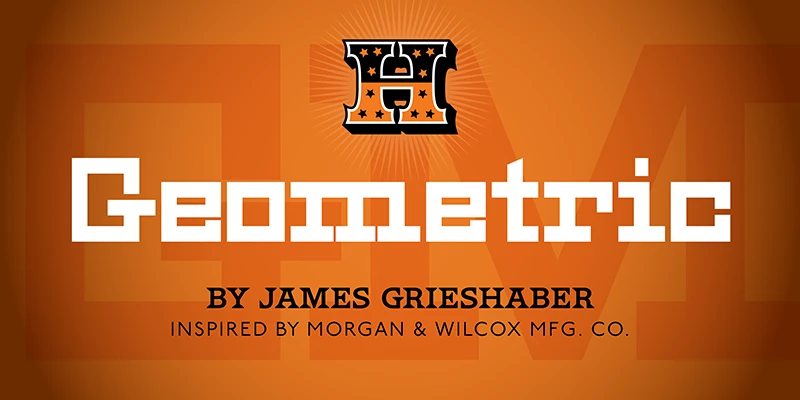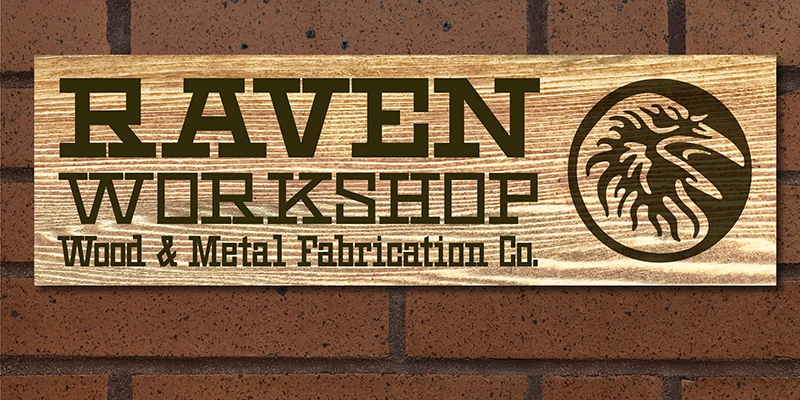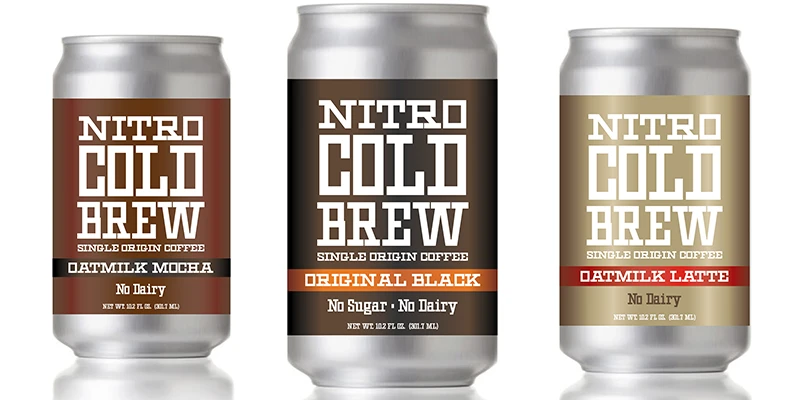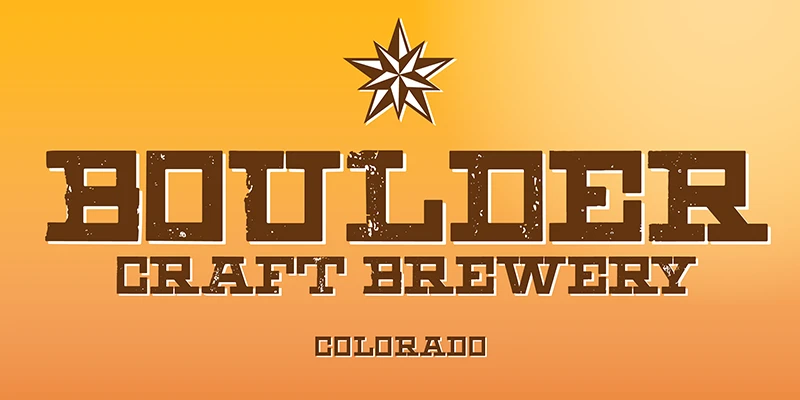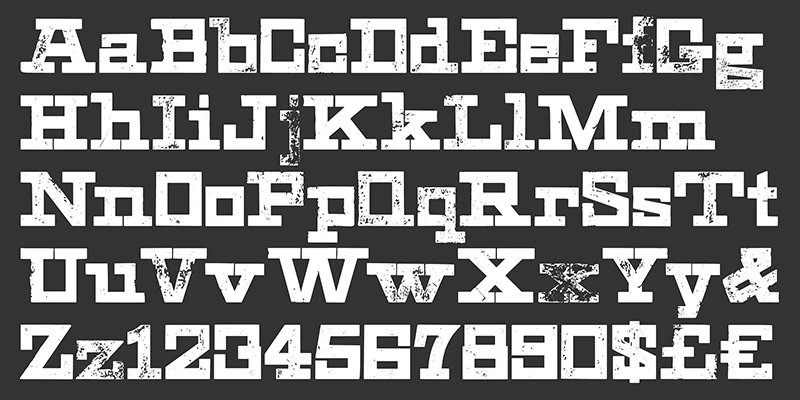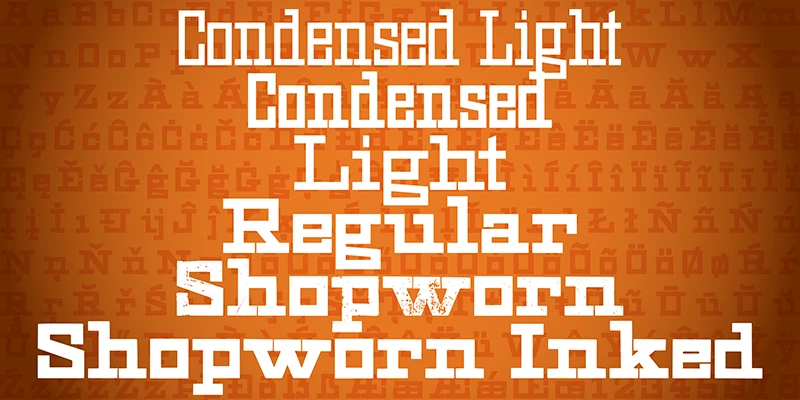
HWT Geometric is a 19th-century design that conjures up early 20th-century Dutch DeStijl lettering with mostly strict adherence to right angles and minimal stroke modulation. Geometric began life as a metal typeface from the Central Type Foundry, circa 1884. After many adaptations by various foundries, James Grieshaber digitized and expanded it for modern use. Geometric could be considered a quirky slab serif perfect for any more rebellious typographic use.
Designed by James Grieshaber